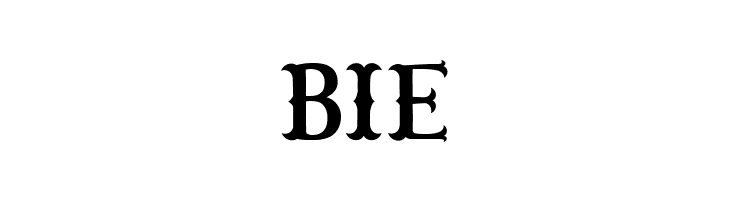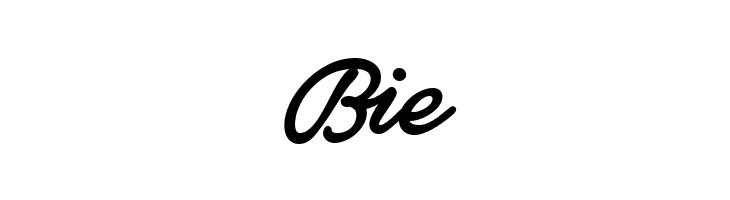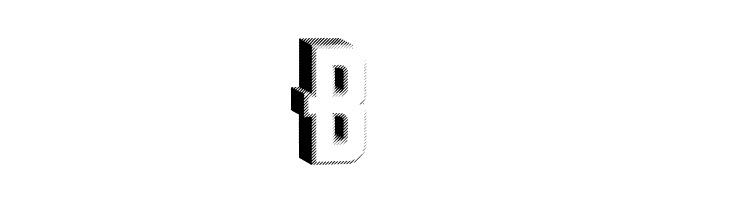
A bold, geometric font with strong lines and tight spacing.
A bold, rounded font with smooth curves and uniform strokes.
A bold, decorative font with a unique striped pattern and vintage flair.
A bold, decorative serif font with a shadow effect for a vintage, three-dimensional look.
A bold, impactful font with clean lines and strong presence.
A bold, elegant script font with interconnected letters and decorative flourishes.
A bold, 3D font with a vintage, art deco style and striped shadow effect.
A bold, geometric sans-serif font with a modern and clean design.
A bold, stencil-style font with geometric cutouts and an industrial feel.